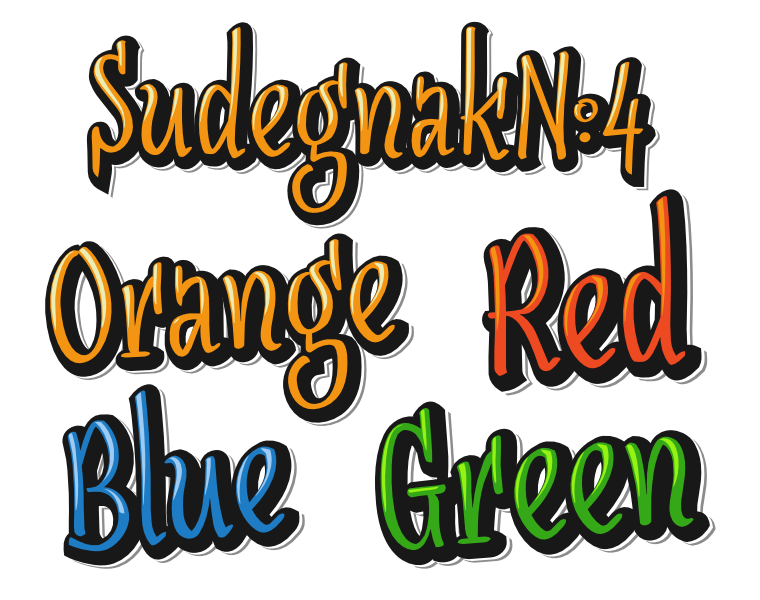
Font SudegnakNo4: Green, Orange, Red and Blue are color fonts with embedded color values in new format. OpenType SVG color font (SVG-in-OT) format is proposal for multi-color, vector fonts, and has been implemented in Mozilla Firefox (v. >= 26), Microsoft Edge (v. >= 38.14393), Adobe Photoshop CC 2017 and Adobe Illustrator CC 2018.